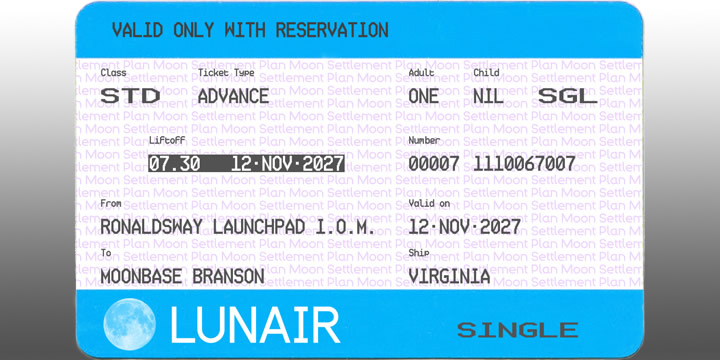
Ticketing
Ticketing is a typewriter and pixel font published by K-Type.
Ticketing is a monospaced font loosely based on the pixel style lettering of electronic ticketing, designed for clarity when cheaply printed at small sizes.
Ticketing is a monospaced font loosely based on the pixel style lettering of electronic ticketing, designed for clarity when cheaply printed at small sizes. Ticketing, however, has a larger x-height than is often found on ticket type.
The glyphs were drawn on a square grid 13 wide by 22 high, though some accented characters are taller or extend below the baseline. The Space is a full character width, but the Non-Breaking Space is set to half the width of the glyphs.